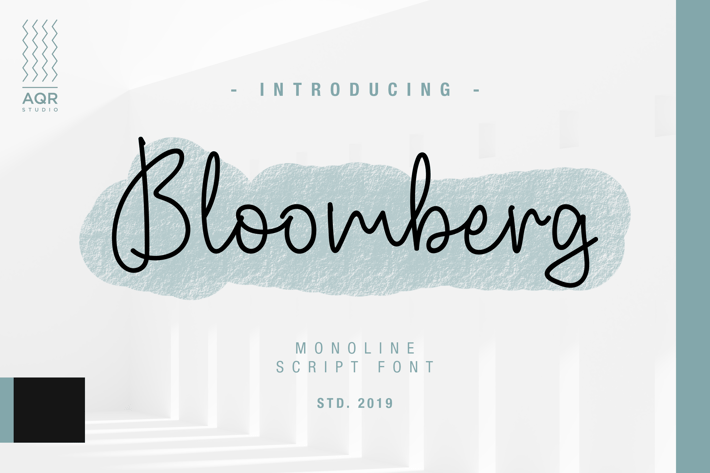
Bloomberg Script Fonts
Bloomberg Font contains a lowercase, uppercase, symbol, and also support multi-language. There’s a lot of ligature in this font. Bloomberg Font also comes with ligatures, stylistic alternates and many more. this font suitable for fashion, branding, catalog and other design what you want.